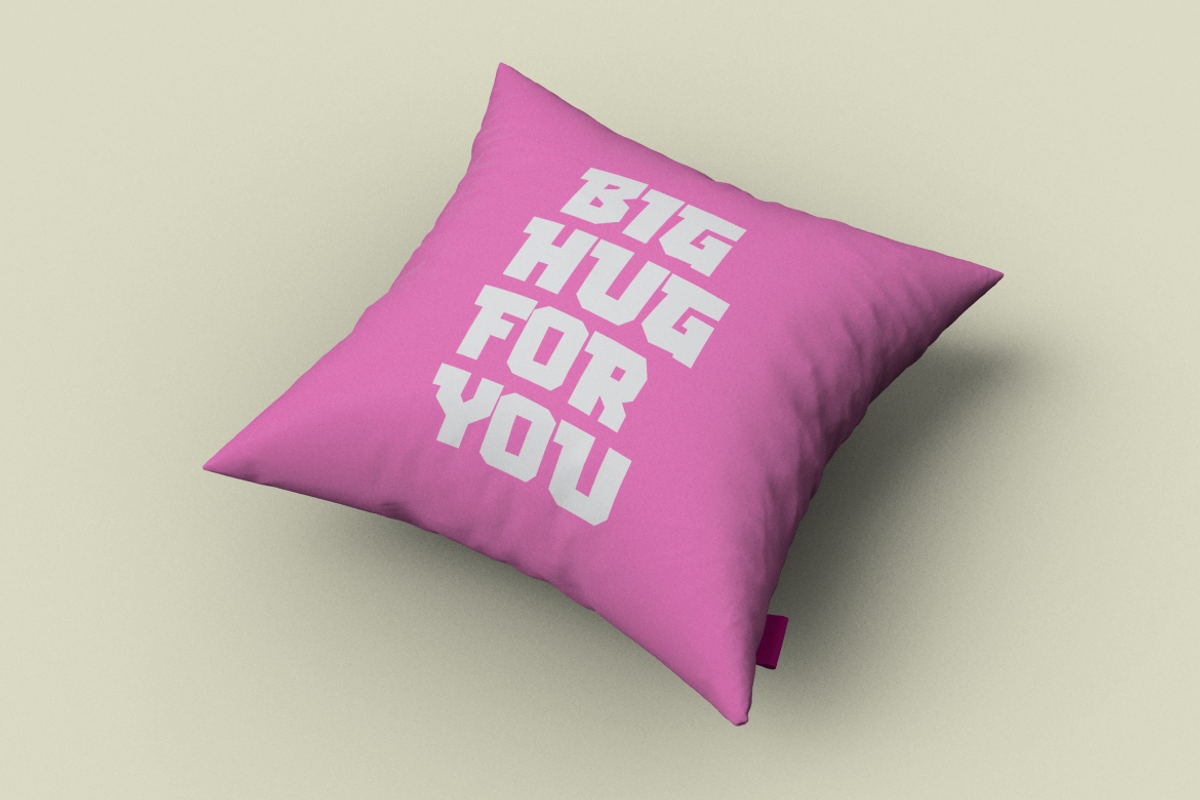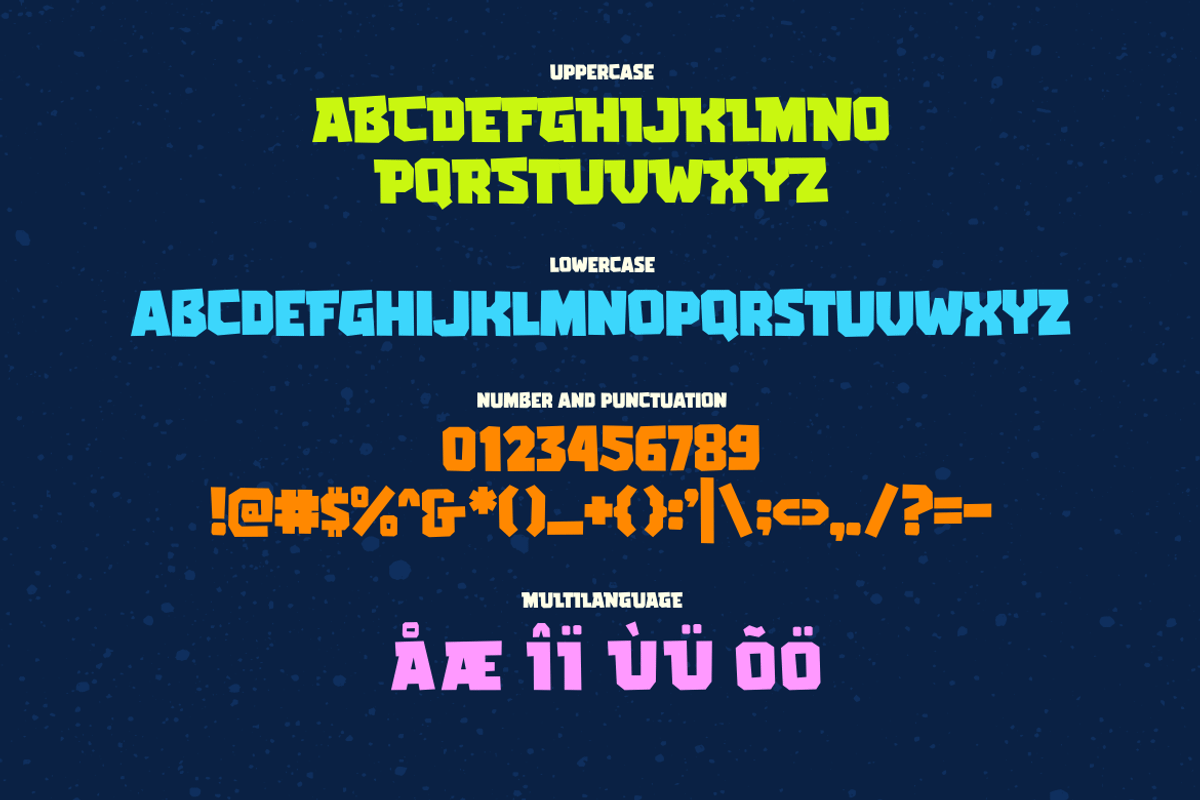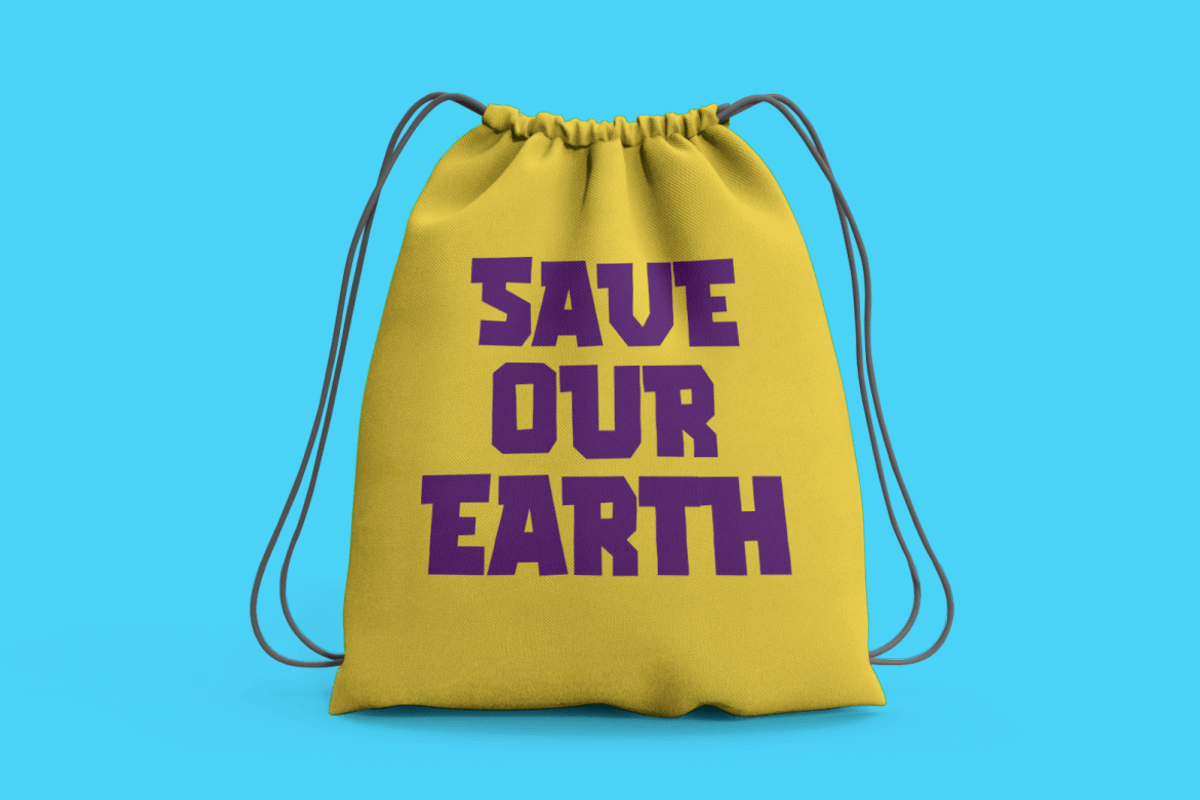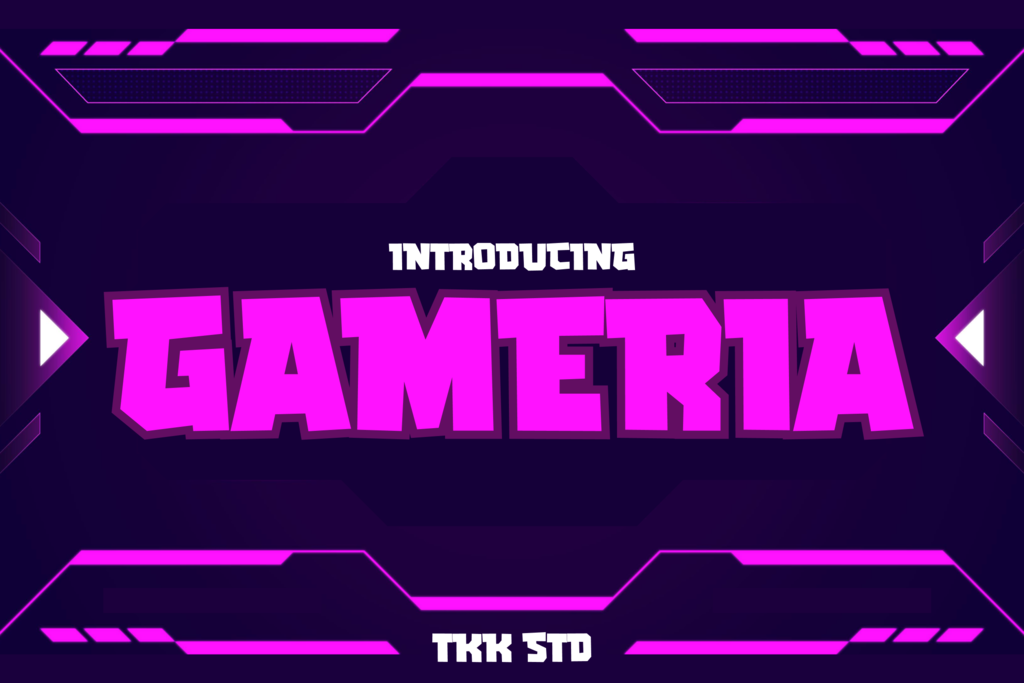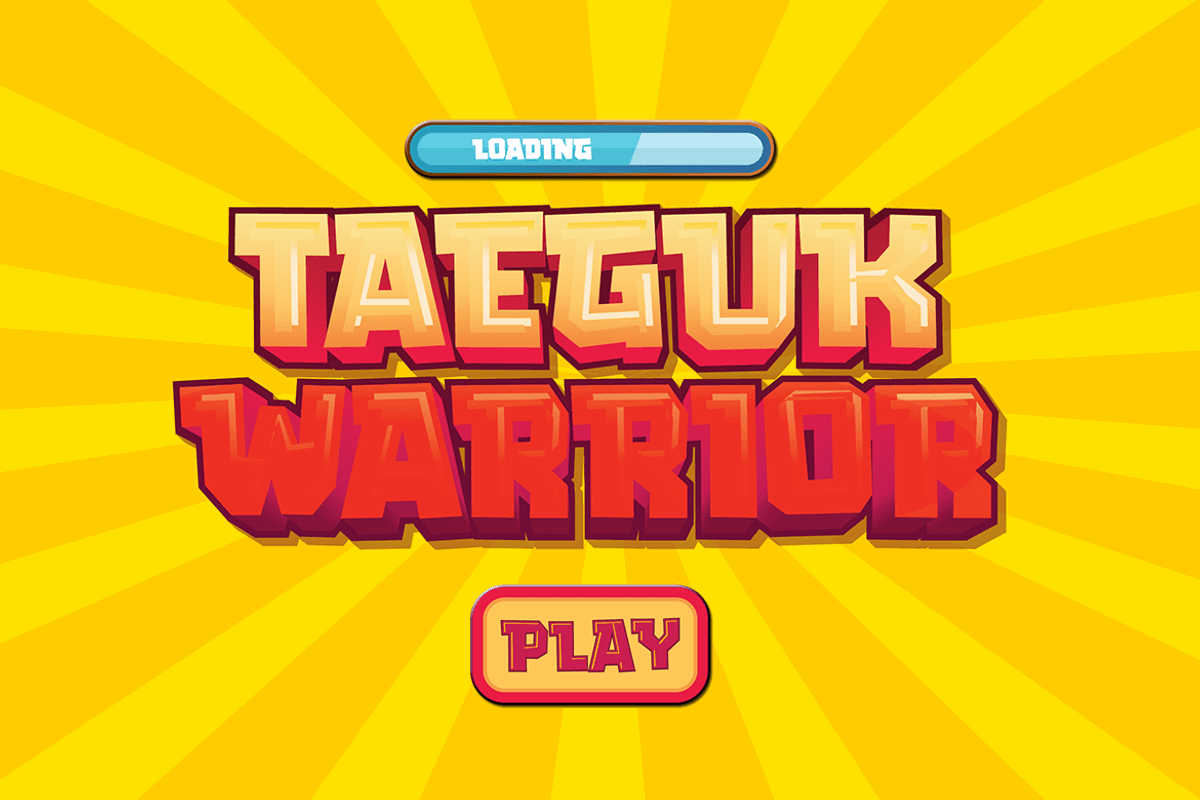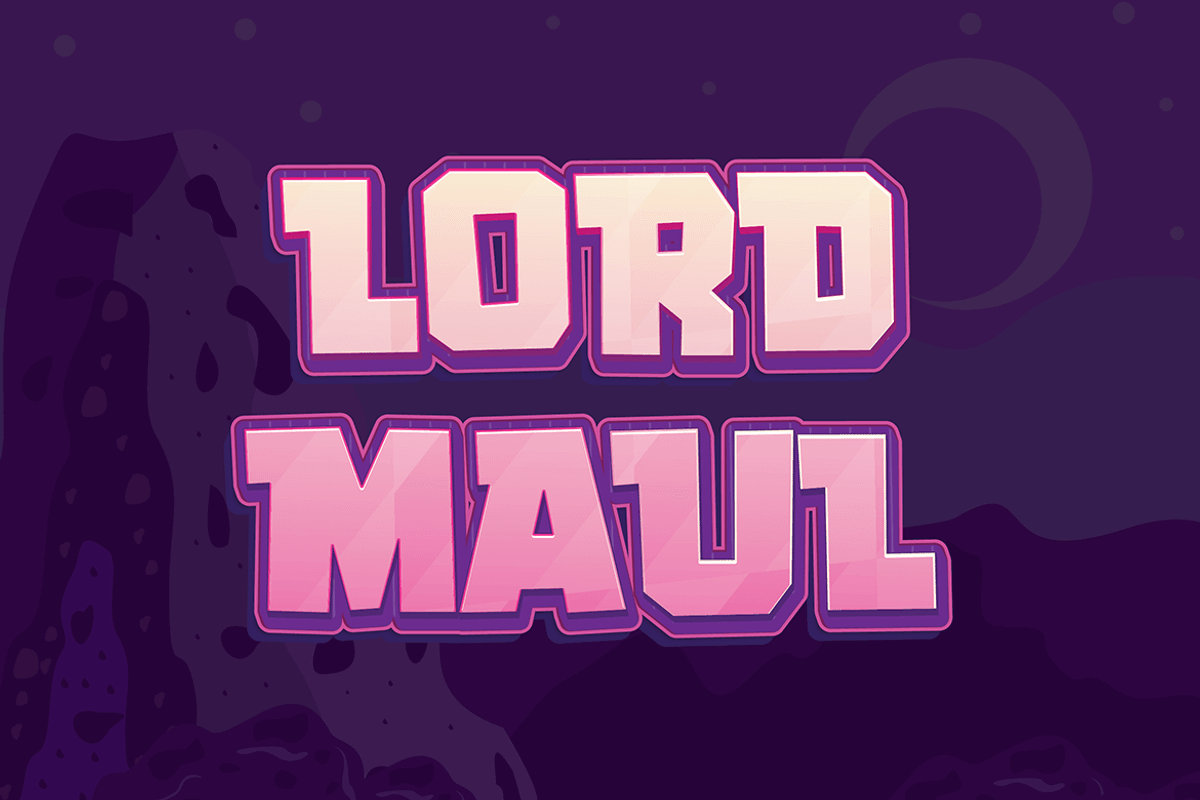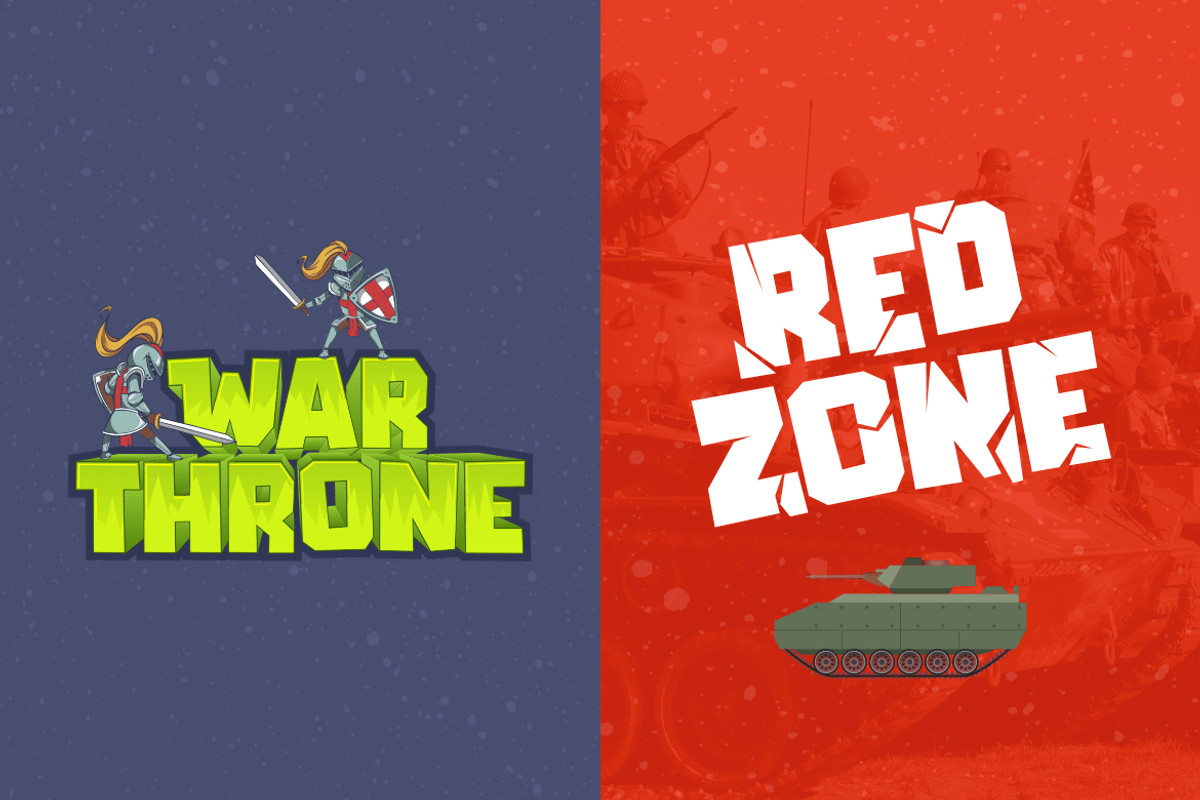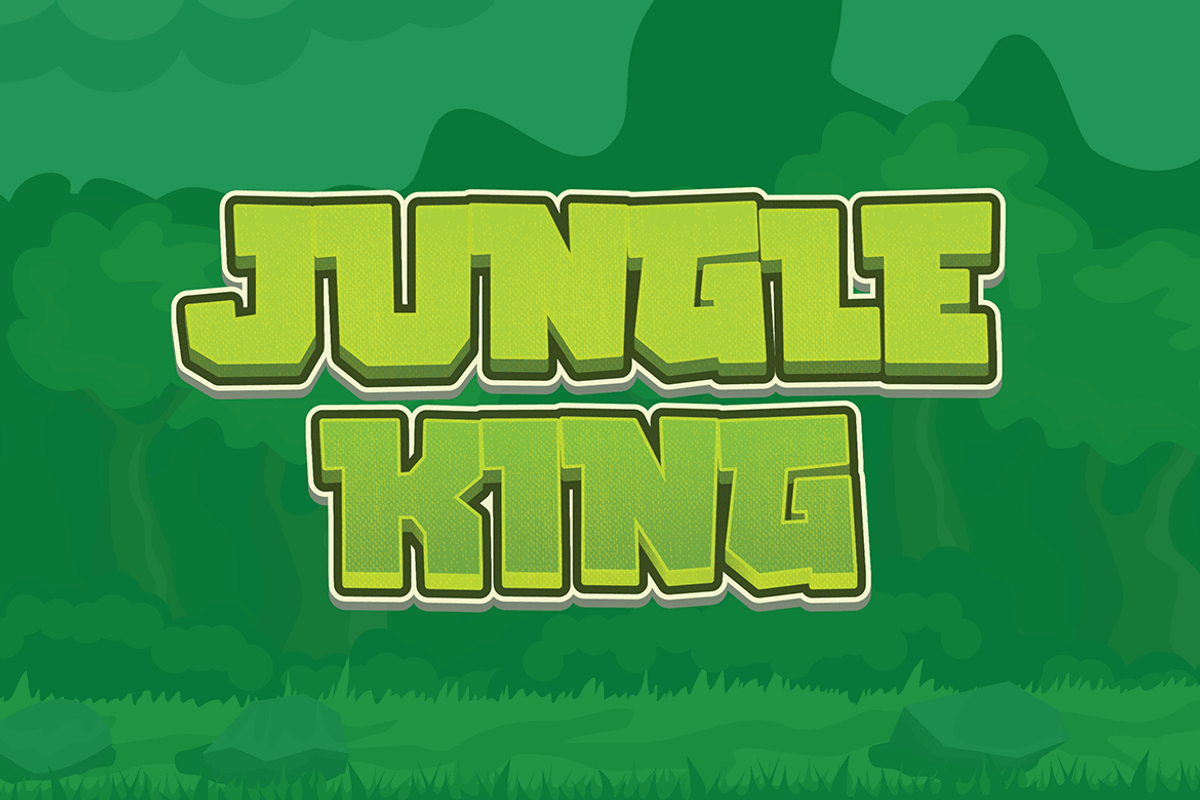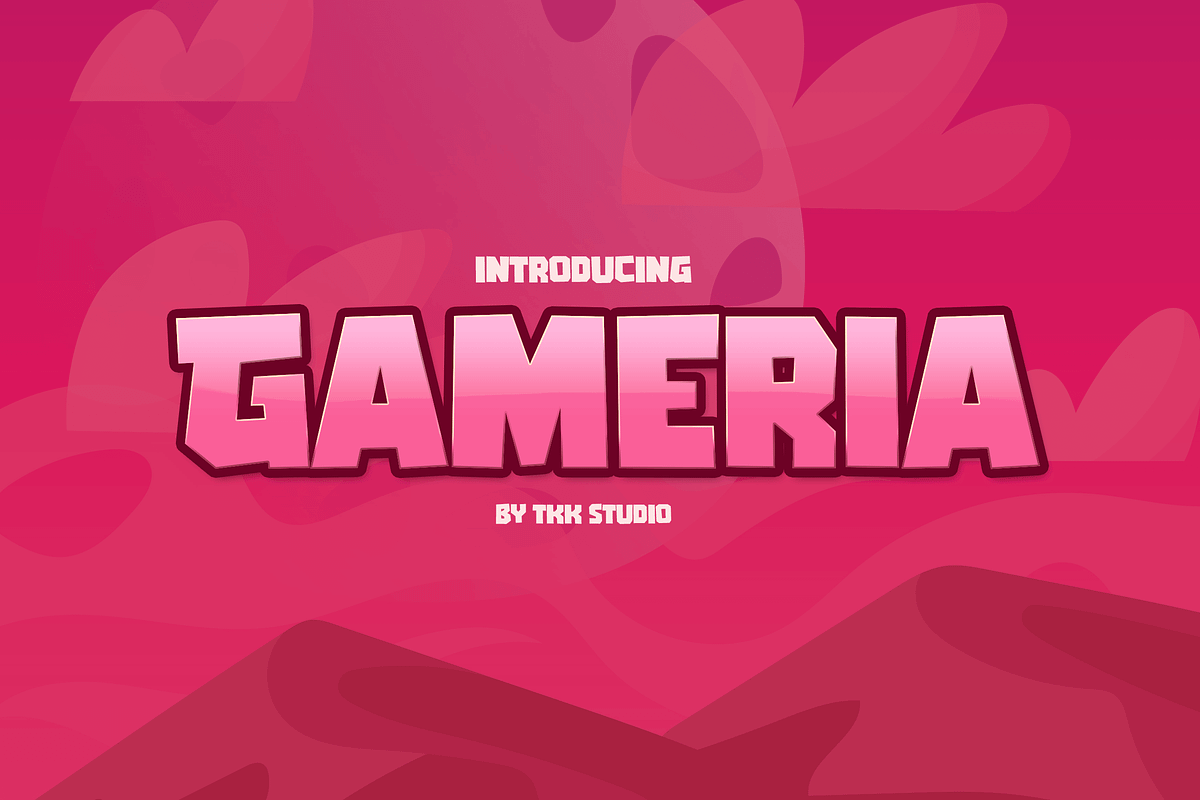
GAMERIA - Gaming Font
GAMERIA gaming font having a blocky shape with a powerful, quirky, and strong sharp corner will emphasize every word you put on the screen.